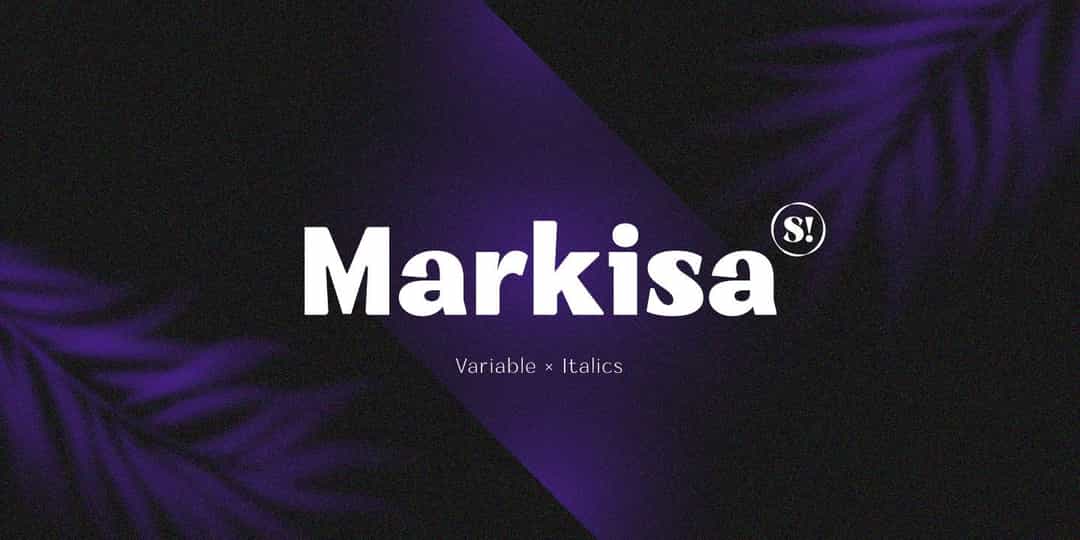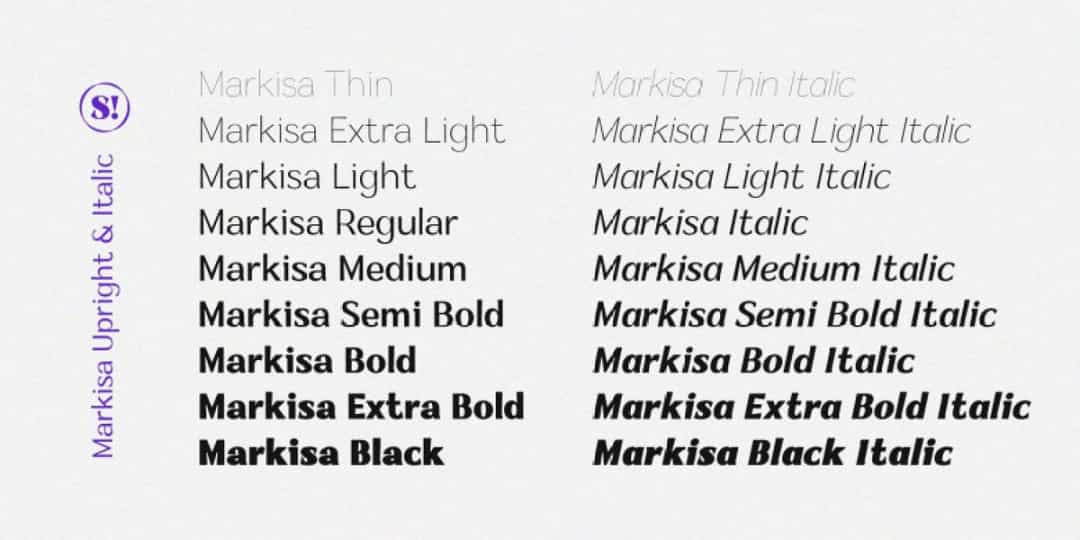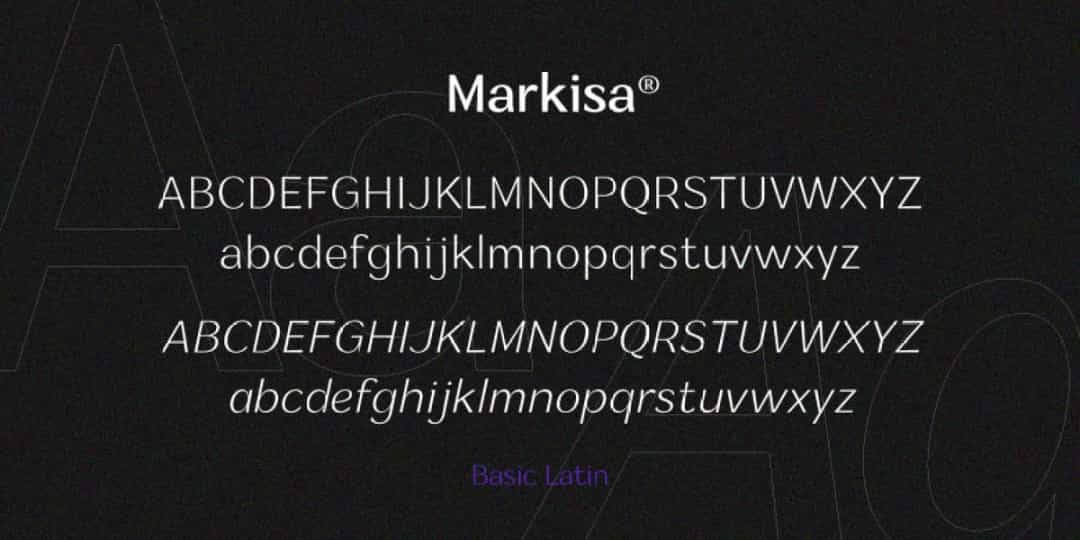
Markisa Font is a contemporary sans serif font family with an elegant modern design and minimalist appeal, available in 18 weights from Thin to Black for both Upright and Italic styles. Markisa stands out with its humanistic touch as it balances seriousness with fun – making for an engaging font family for any professional design project!